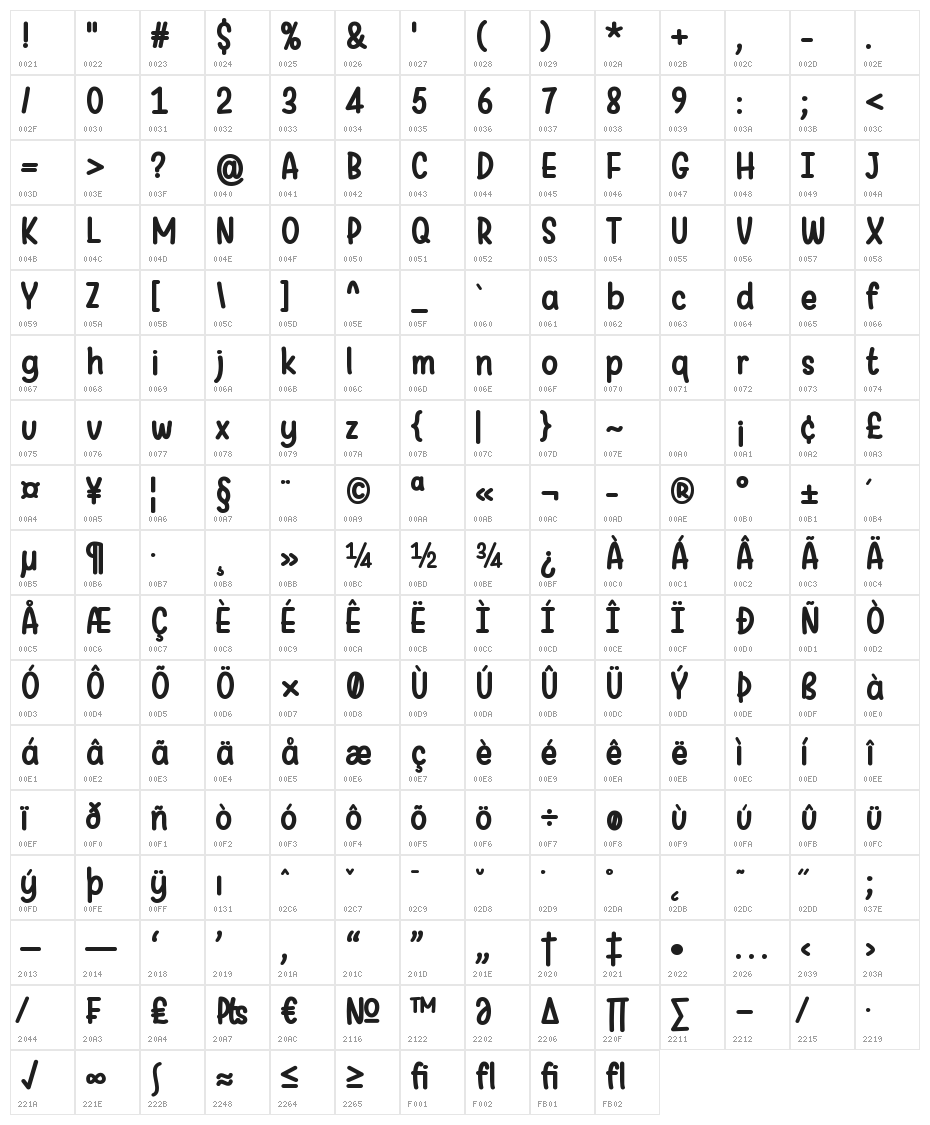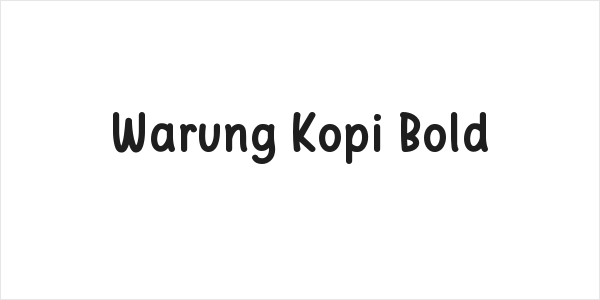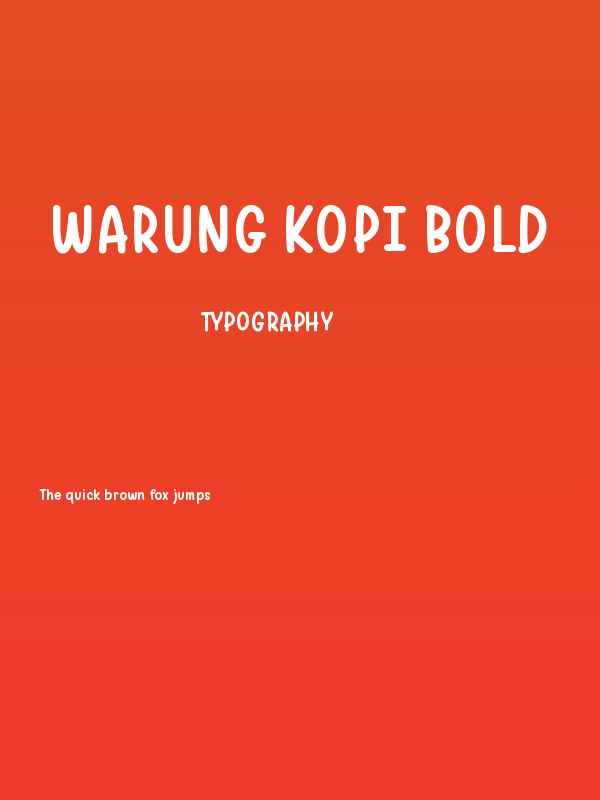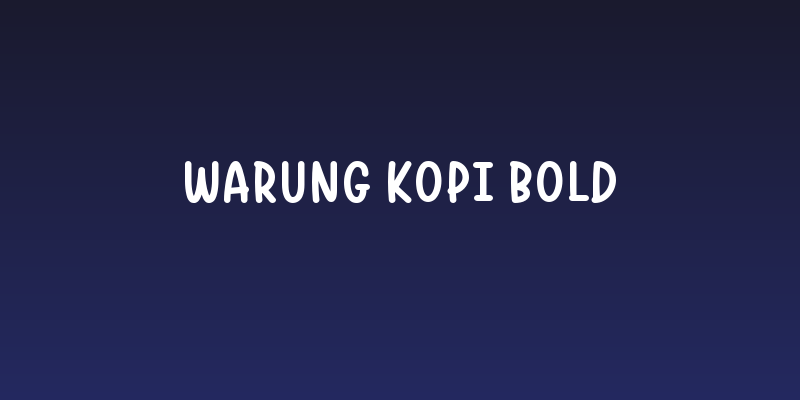
Warung Kopi Bold Font
Warung Kopi Bold Description
This font features a bold and playful style with rounded edges and a hand-drawn appearance. The characters are thick and have a consistent weight throughout, giving them a friendly and approachable look. The uppercase and lowercase letters maintain a uniform height, contributing to a cohesive and balanced design. The numerals and special characters follow the same aesthetic, ensuring a harmonious overall appearance. This font is ideal for projects that require a casual and inviting feel, such as children's books, playful branding, or informal invitations.
| Proposed Projects | Children's books, playful branding, informal invitations, casual posters. |